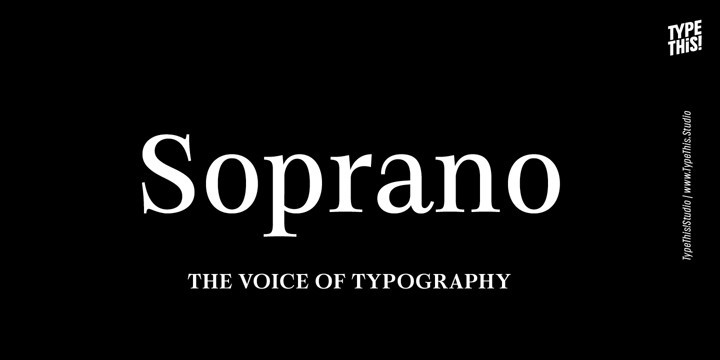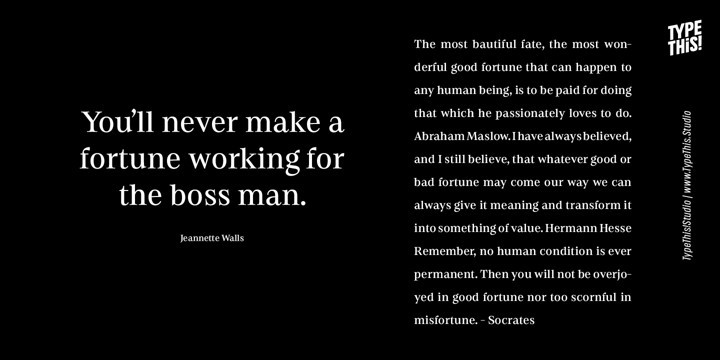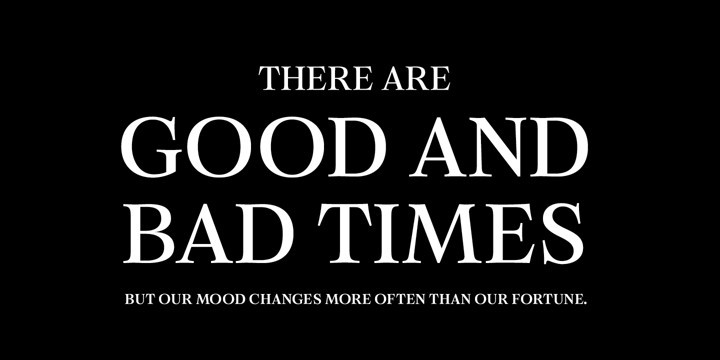
Soprano Font Family
Soprano Font FamilyA well-polished typeface is like the sweet sound of a melodious voice.
Soprano is designed for elegant and luxury design elements. Whether it’s brands for watches, jewelry, cars or fine wines, Soprano adds the undeniable and outstanding beauty of a professional designed elegant typeface.
Soprano offers 5 weights and a full set of upper & lowercase letters, ligatures, old-style & lining figures as well as ​broad Latin​ language support.